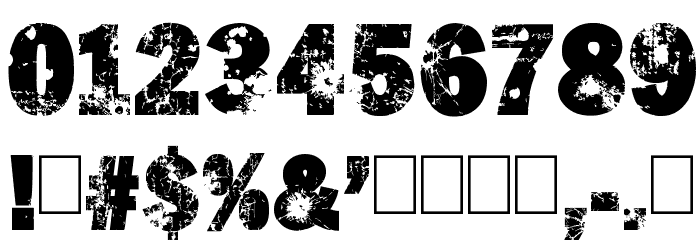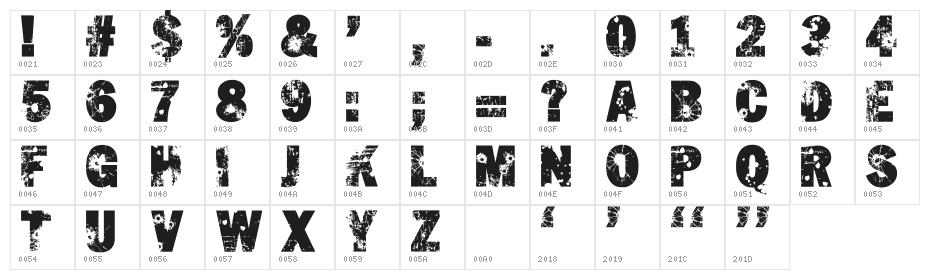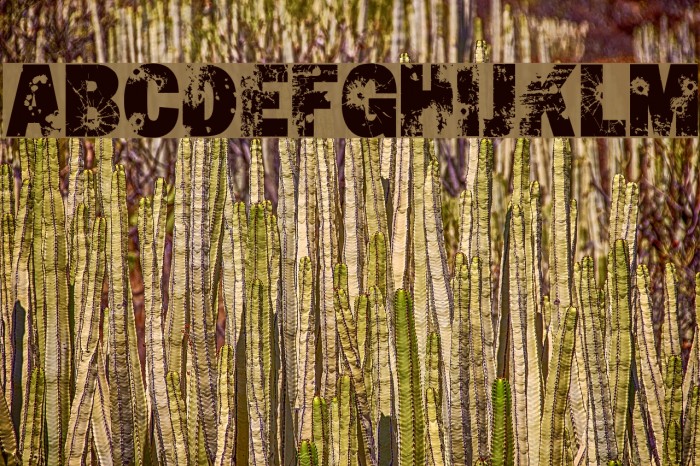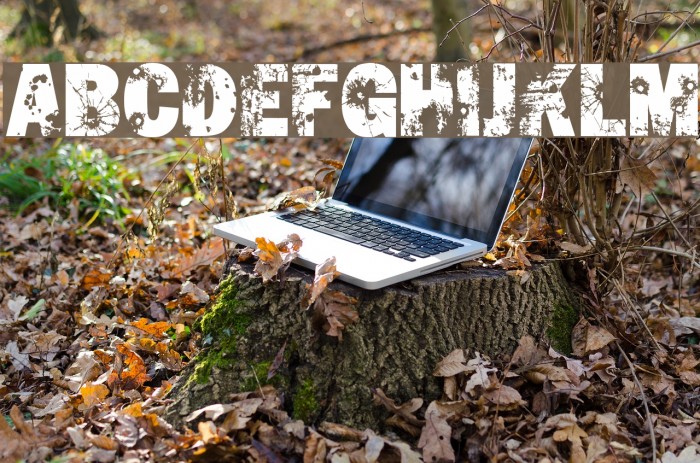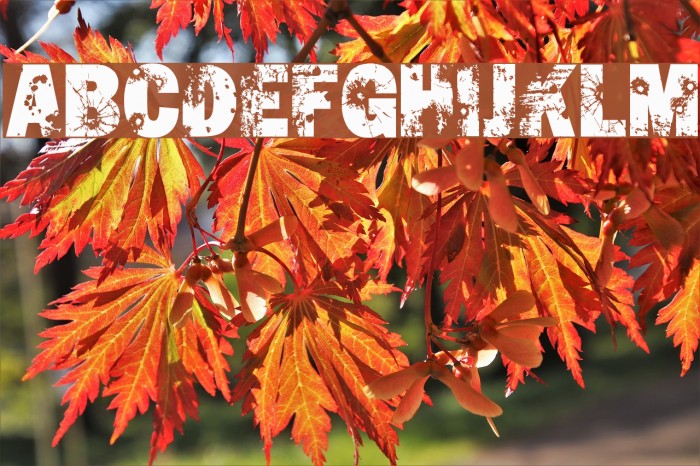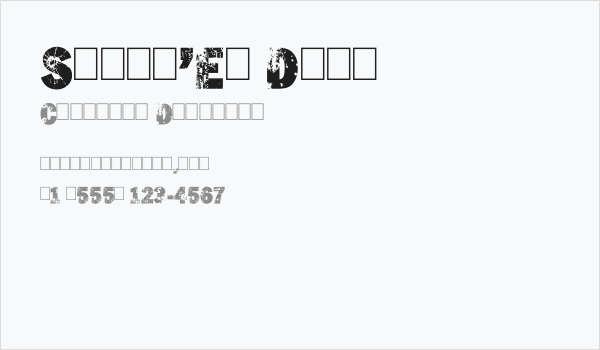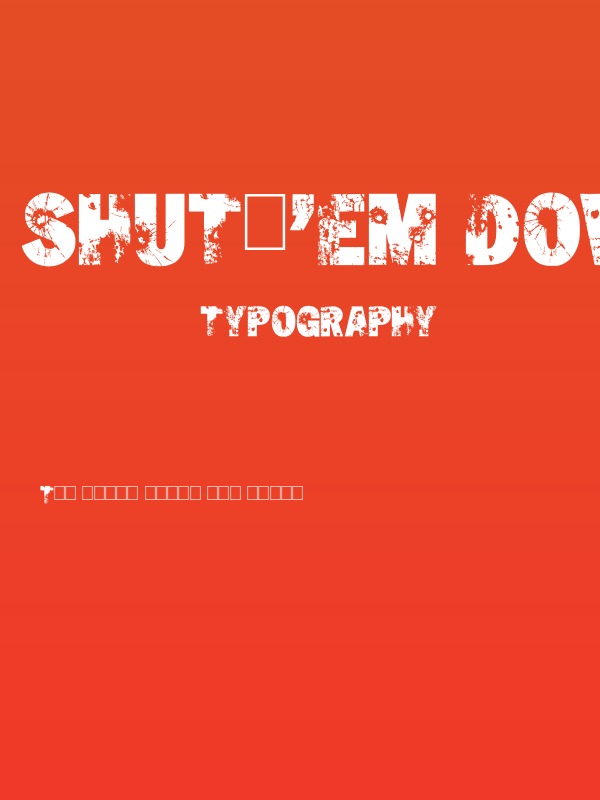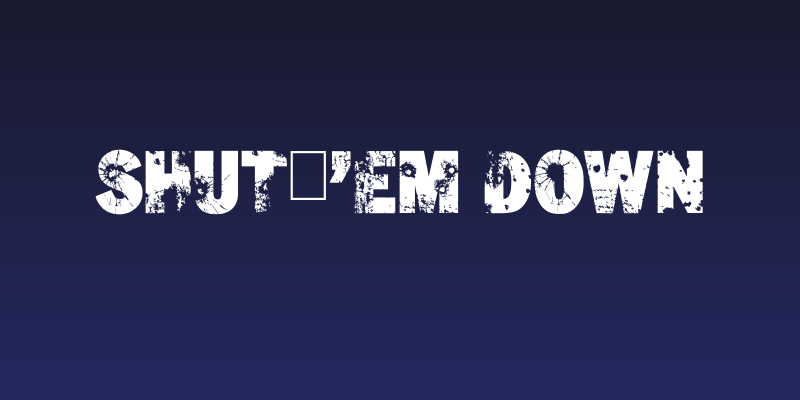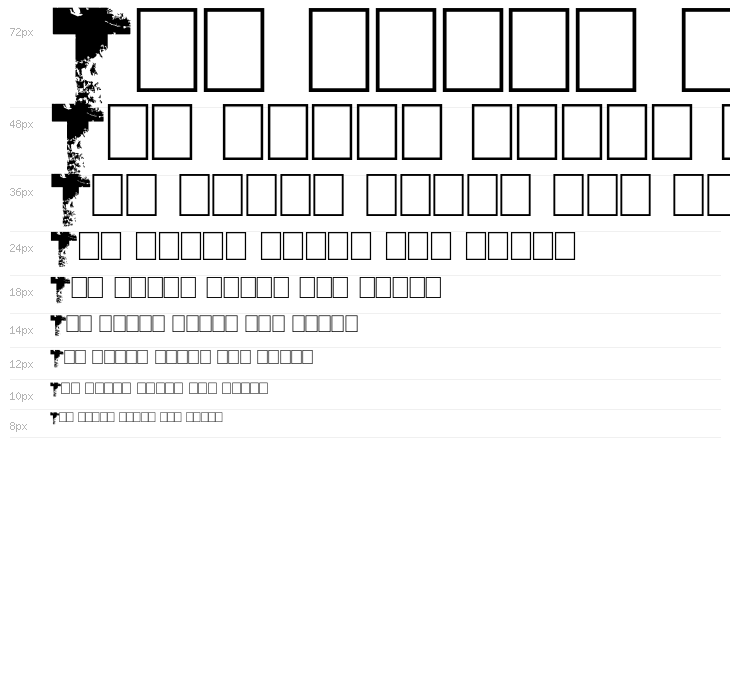
Shut'Em Down Font
Shut'Em Down Description
This font features a bold, distressed style with a grunge texture that gives it a rugged and edgy appearance. The uppercase letters are prominent, with a rough, weathered look that suggests wear and tear, making it ideal for designs that require a gritty, urban feel. The numbers and special characters maintain this distressed aesthetic, ensuring consistency across all elements. The font's boldness and texture make it stand out, perfect for projects that need a strong visual impact.
| Overall Style | Grunge, Urban, Edgy |
| Proposed Projects | This font is perfect for music album covers, streetwear branding, posters for rock concerts, or any project that requires a bold, gritty aesthetic. |